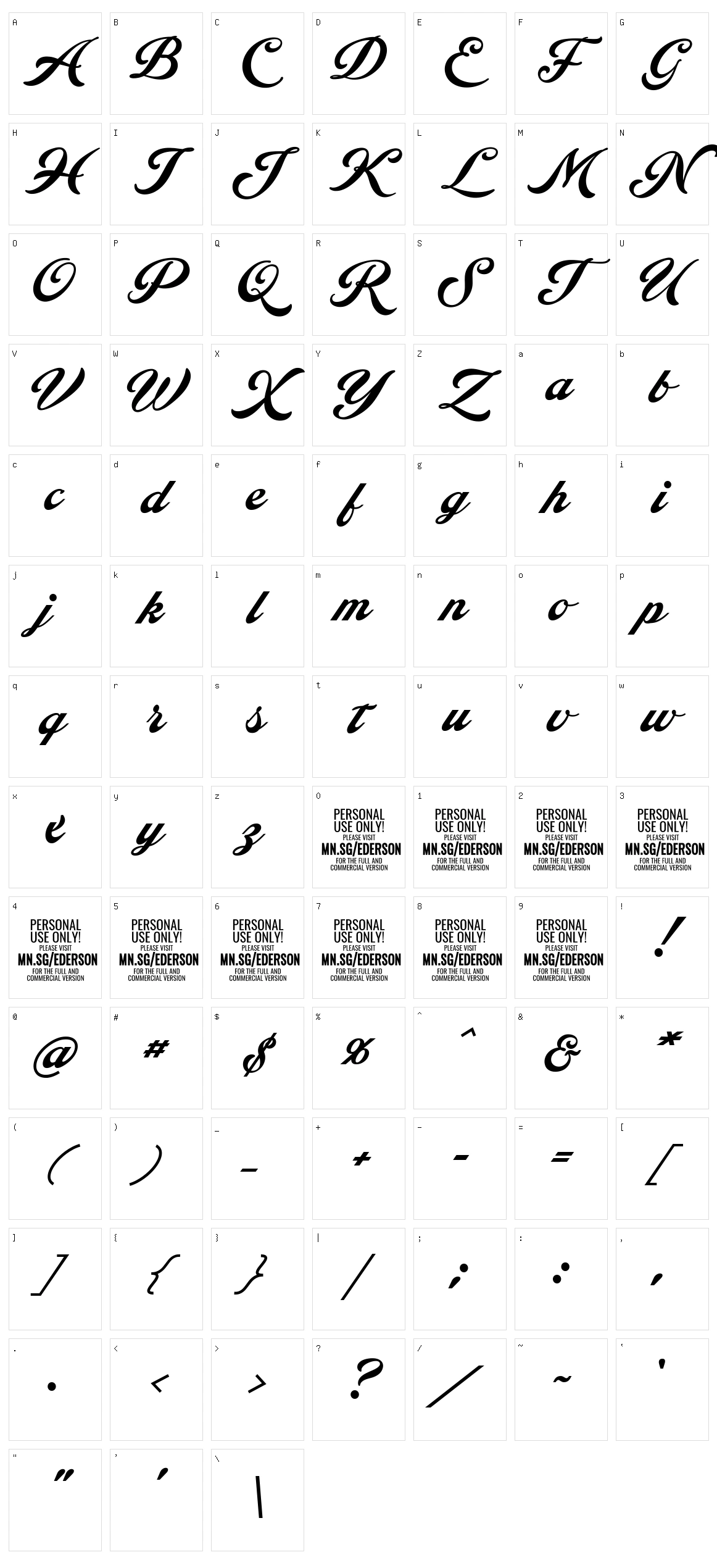
Ederson is a classic logotype script.
This high-quality typeface is drawn by Måns Grebäck in 2018 and gives any project a vintage touch.
It also comes with an additional decorative style containing swashes, swirls and ornamental capitals.
These used together with the original font gives it a true customized look.
The font is packed with all symbols you would ever need.
This in addition to support for all major Latin-based languages.